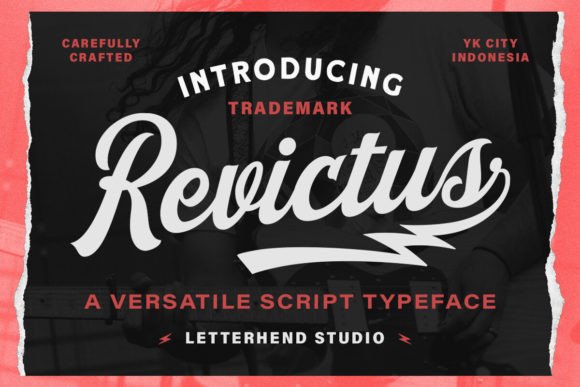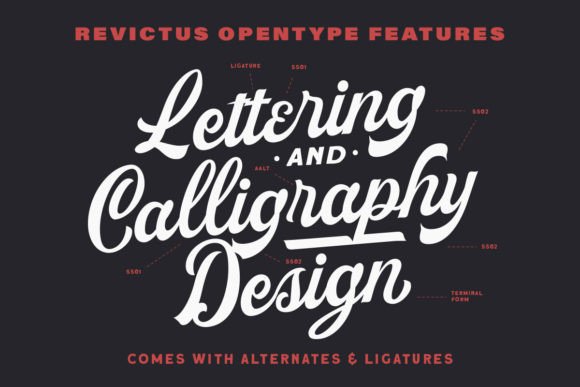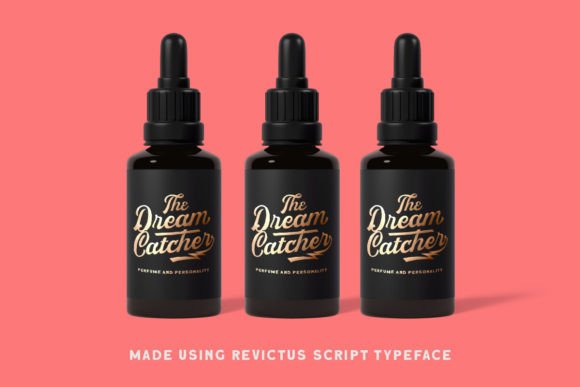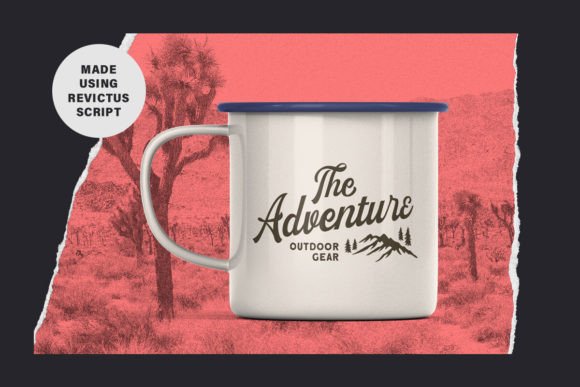
Revictus Font: Vintage Script for Creative Logo Design & Branding
About the Revictus Font
Get ready to be inspired by Revictus Font, a fresh and dynamic typeface for modern creators. Revictus is a script with vintage look and feel. This font perfectly made to be applied especially in logo, and the other various formal forms such as invitations, labels, logos, magazines, books, greeting / wedding cards, packaging, fashion, make up, stationery, novels, labels or any type of advertising purpose.
Revictus’s vintage elegance shines in branding projects requiring a touch of nostalgia, particularly logos, invitations, and packaging for high-end products. Its refined aesthetic also works well for short-form editorial pieces like magazine headlines or short book titles. However, avoid using it for body text or lengthy paragraphs; its intricate detail becomes visually overwhelming at smaller sizes.
The font’s personality is sophisticated yet approachable. It suggests quality and tradition without feeling stuffy. Pairing it with a clean sans-serif like Montserrat for body copy or a geometric sans-serif like Futura for supporting text creates a balanced, modern feel. For a more vintage-inspired outcome, consider a complementary serif like Garamond or Didot.
Conversely, avoid pairing it with overly playful or informal fonts as this would clash with its inherent classicism.
Revictus Font Usage Examples
Revictus Font Example